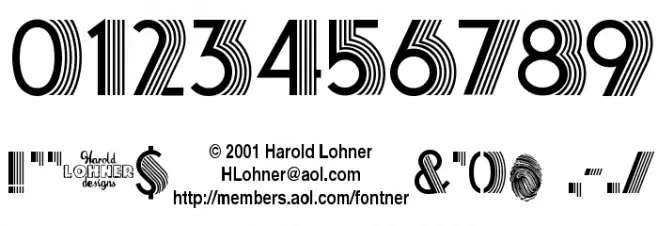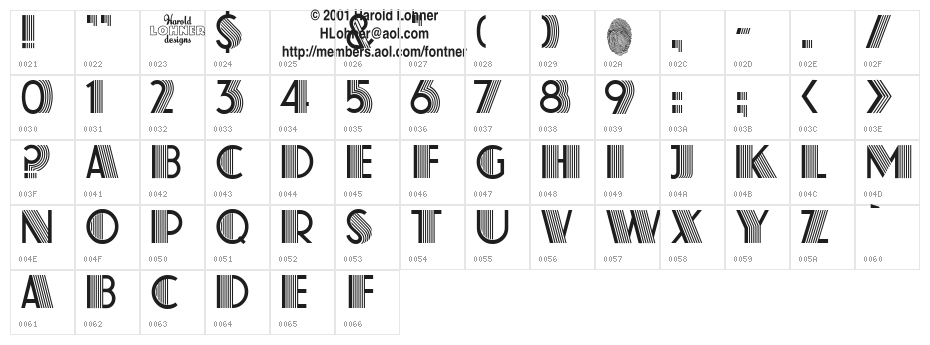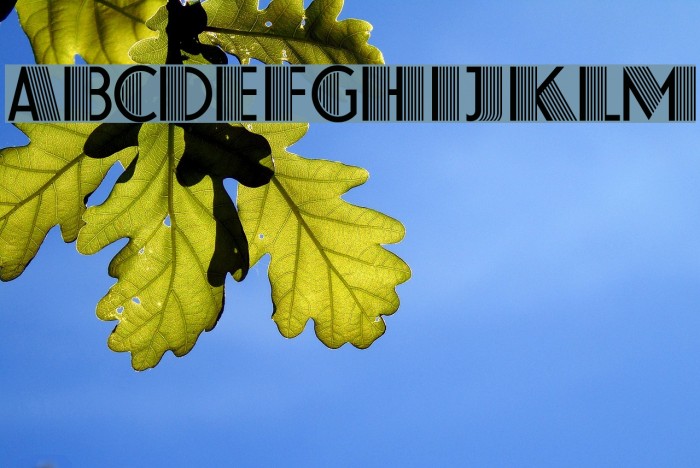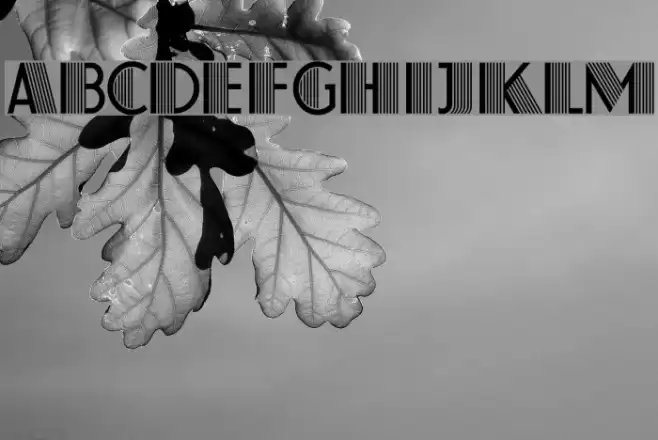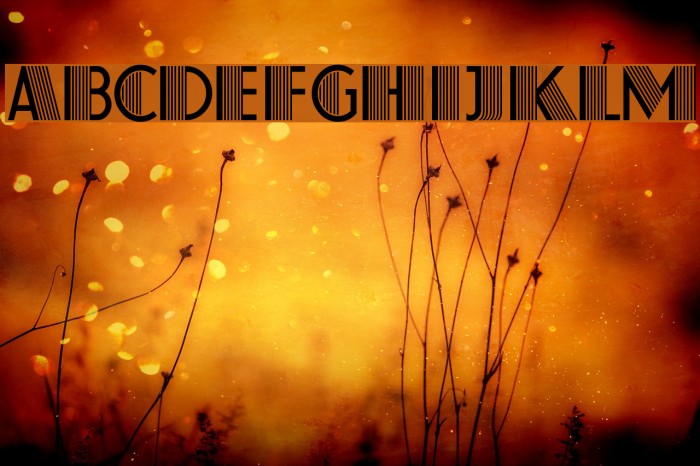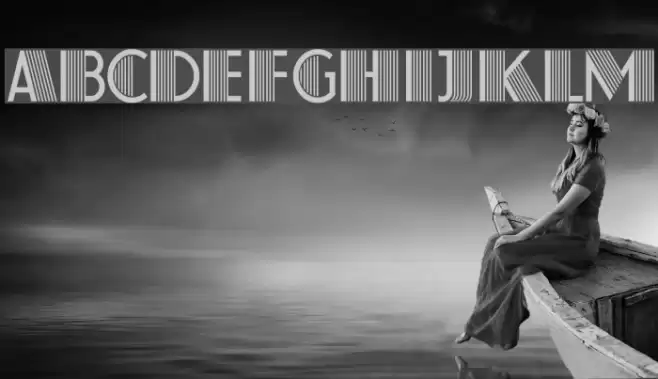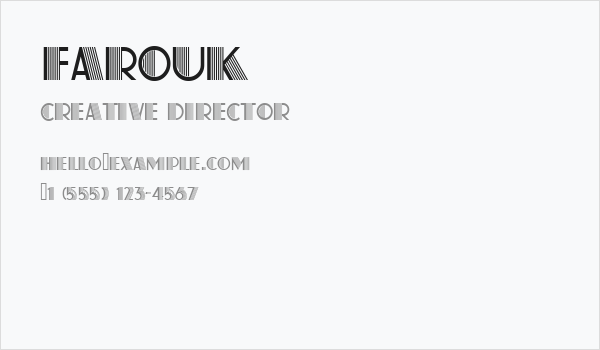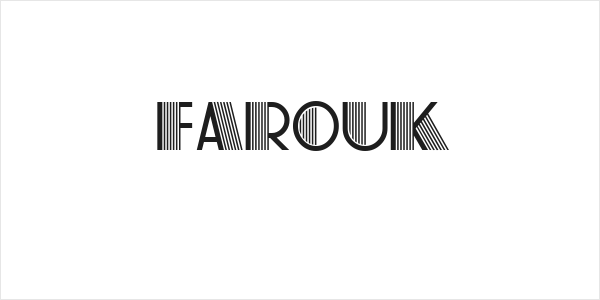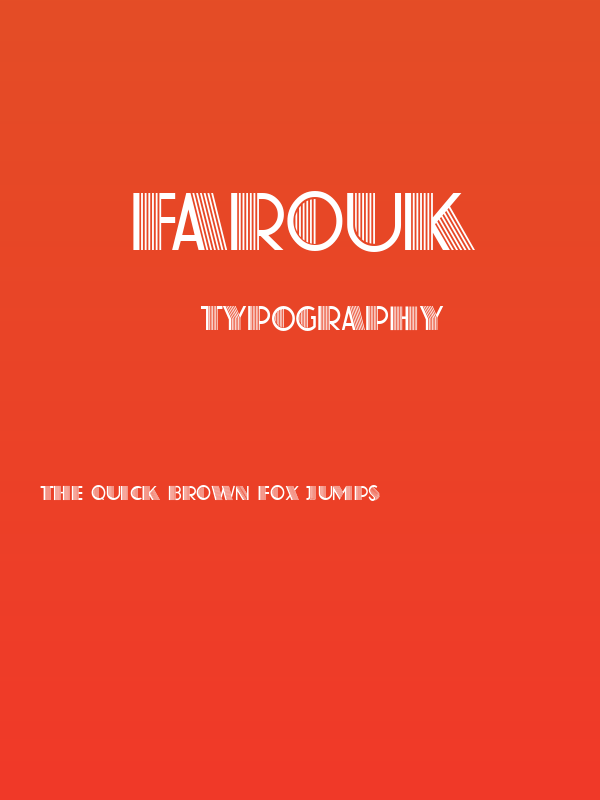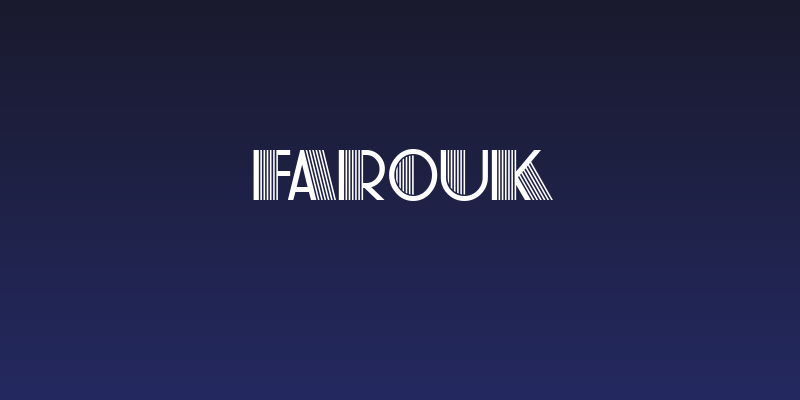
Farouk Font
Farouk Description
This font features a unique and striking design characterized by multiple parallel lines forming each character, creating a sense of movement and depth. The uppercase and lowercase letters, as well as numbers and special characters, maintain a consistent style that is both bold and visually engaging. The geometric structure of the characters is enhanced by the striped pattern, making it ideal for attention-grabbing designs. The font's modern and artistic flair makes it suitable for creative projects that require a distinctive and memorable typeface.
| Proposed Projects | Ideal for posters, logos, album covers, and any project needing a bold, artistic touch. |